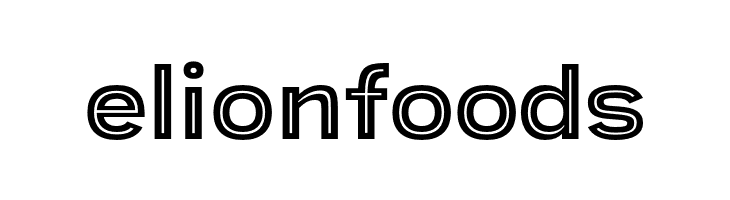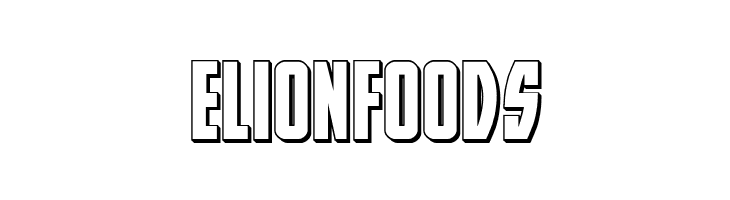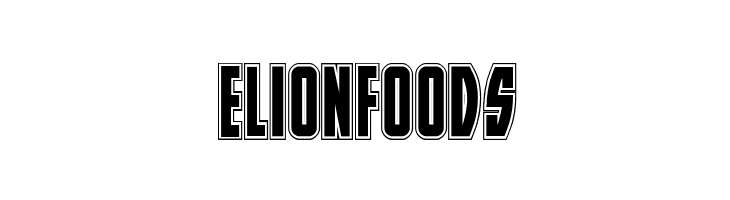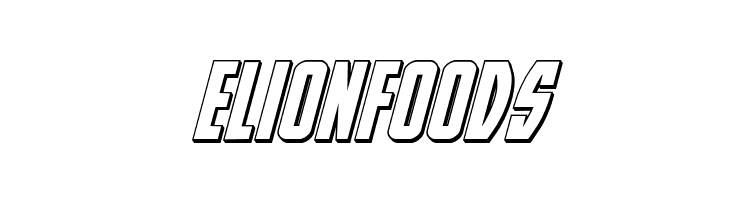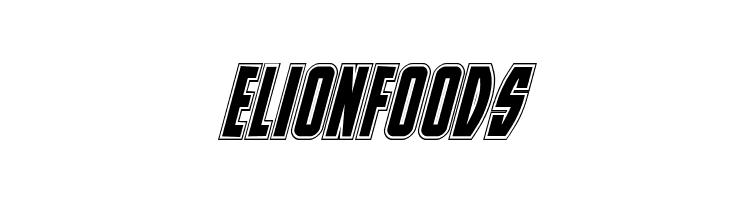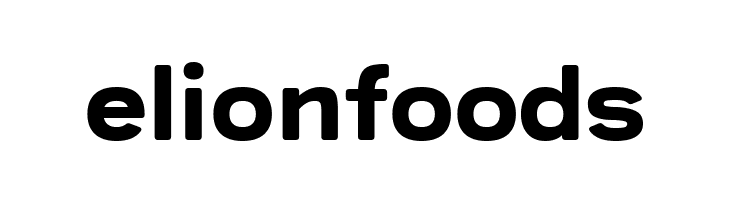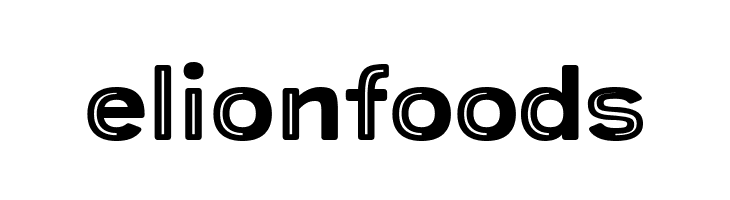
A modern, rounded font with partial inline detailing for a sleek and sophisticated look.
A bold, modern sans-serif font with clean lines and geometric shapes.
A modern, rounded sans-serif font with bold, smooth curves and a friendly appearance.
A modern, inline font with geometric lines and a structured, outlined appearance.
A bold, 3D italic font with a dynamic and energetic style.
A bold, three-dimensional font with a modern, geometric style.
A bold, italicized font with outlined characters and a dynamic, energetic style.
A bold, outlined font with a strong, geometric style ideal for impactful designs.
A bold, condensed font with sharp angles and a modern, assertive style.
Bold, condensed, and italicized font with a dynamic, angular style.